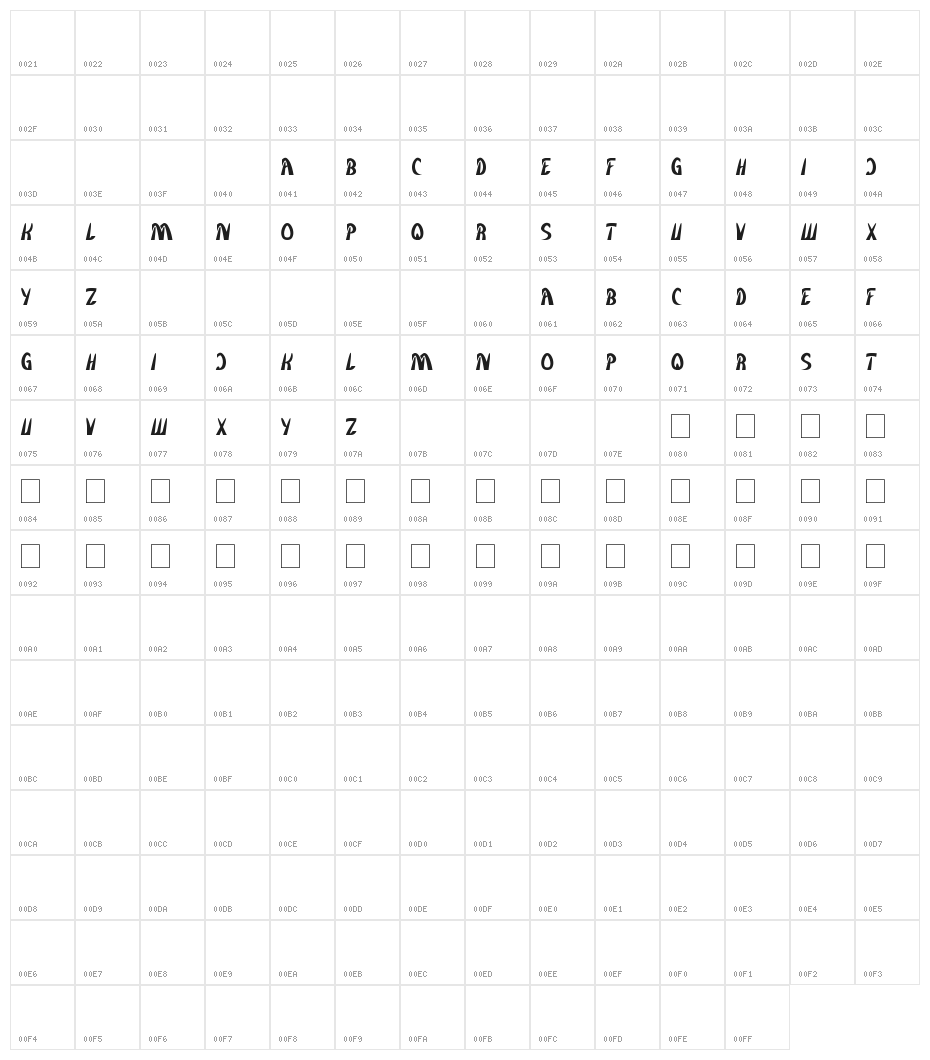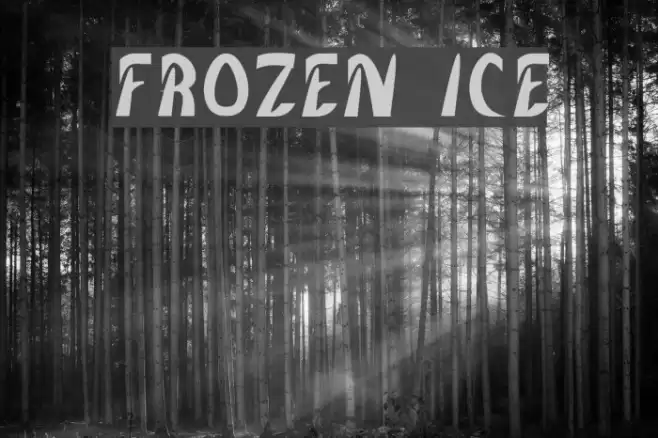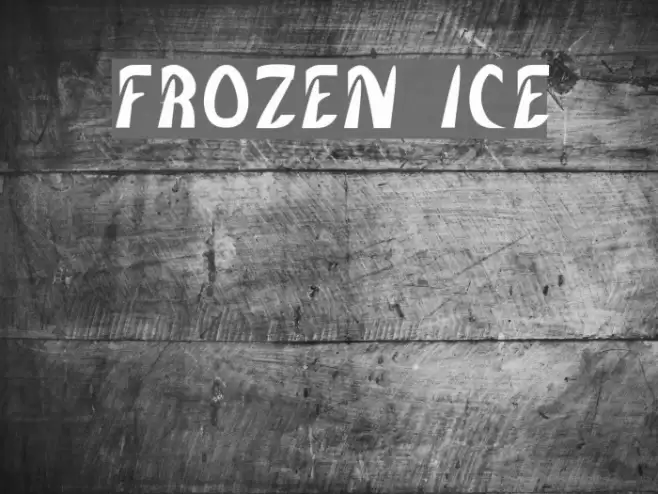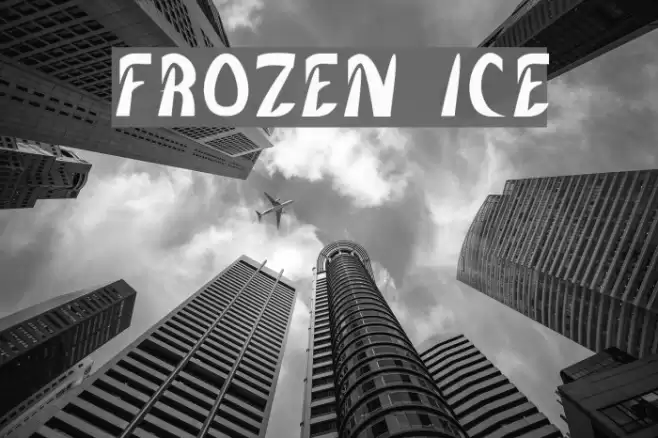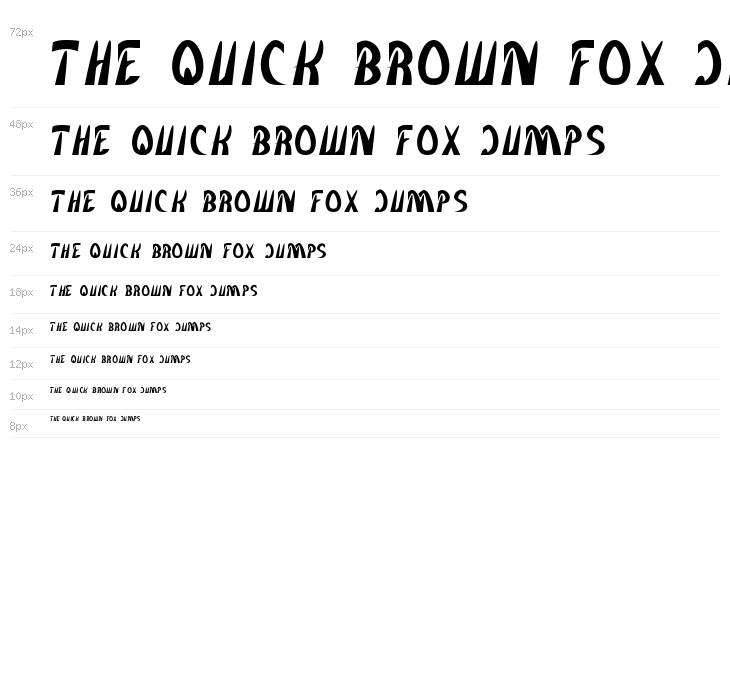
frozen ice Font
frozen ice Description
This font features a bold and dynamic style with a playful, icy theme. The characters have a distinct, angular design that mimics the appearance of frozen icicles or shards. Each letter is crafted with sharp edges and varying stroke widths, creating a sense of movement and energy. The uppercase letters are particularly striking, with exaggerated curves and points that enhance the frosty aesthetic. The overall effect is both whimsical and impactful, making it ideal for creative and eye-catching designs.